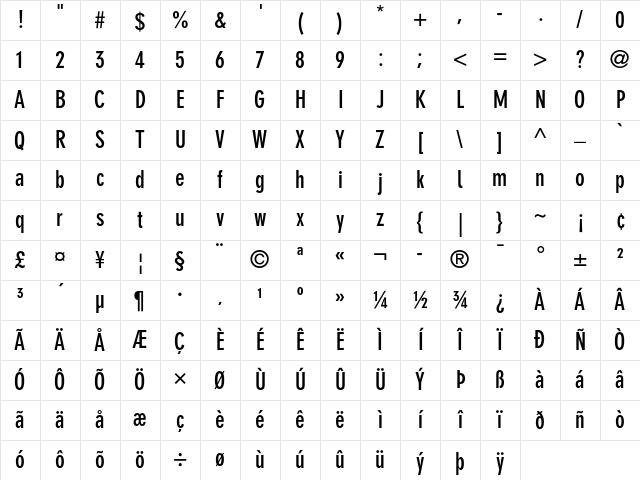
DIN Schrift 30640 Neuzeit Grotesk Bold Cond
Style: 30640 Neuzeit Grotesk Bold Cond
Design Context for DIN Schrift
DIN Schrift takes a clean, functional approach - its unadorned letterforms prioritise legibility and work reliably across screen and print environments. Its bold stroke weight gives it real presence on the page. Its narrow stance lets it pack a punch even in space-constrained designs.
Font Pairing: Use DIN Schrift for headlines alongside a lighter-weight sans or serif for body copy to establish clear visual hierarchy.
Pro Tip: Use DIN Schrift tightly set in headlines and banners - its condensed proportions make it ideal for maximum impact in minimum horizontal space.